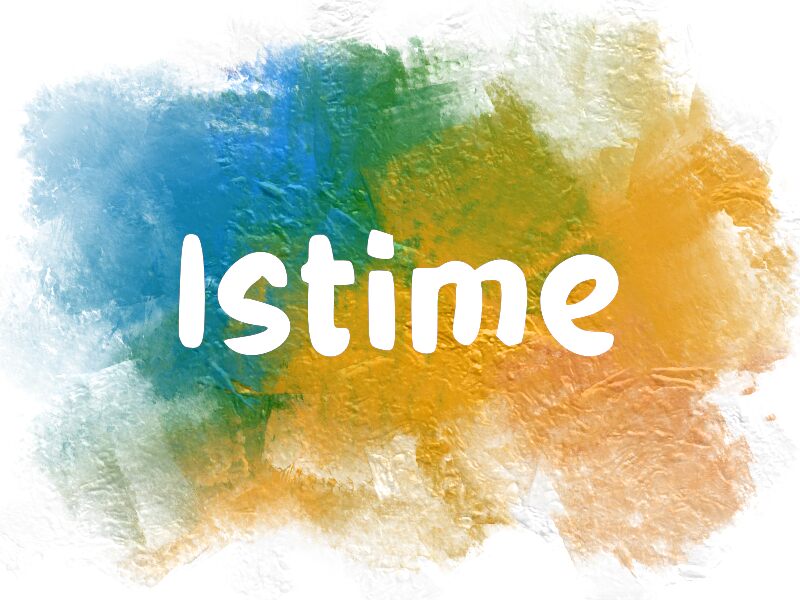
Istime
Istime font by wep is an incredibly fun and engaging cartoon-style display font that will lift spirits and captivate audiences. Its strength lies in the visual uniqueness of its clean but wild style which looks spectacular in copy design. The free display font has no imperfections, and all details aim to make it a perfect decorative typeface.
Use Istime font in greeting cards, invitations, party banners, social media banners, Shopify stores, leaflets, posters, or commercials. Encoding messages using this unique display font will almost always deliver great results effortlessly for amateurs and professionals alike!